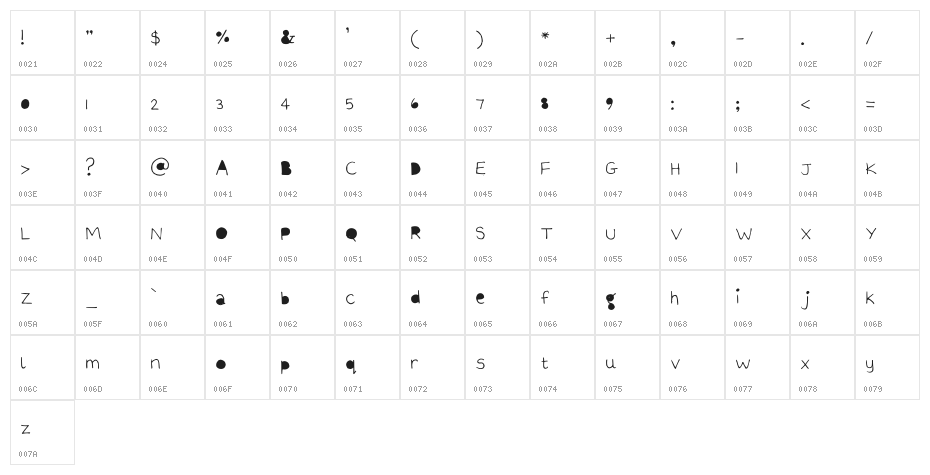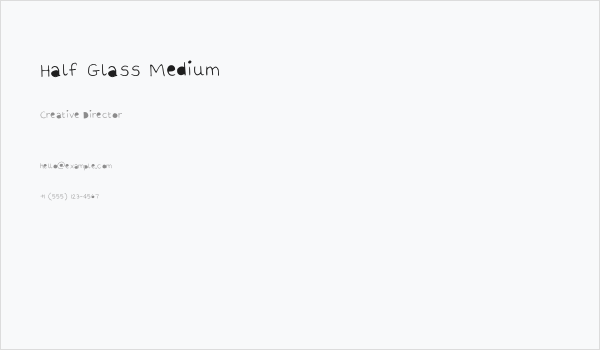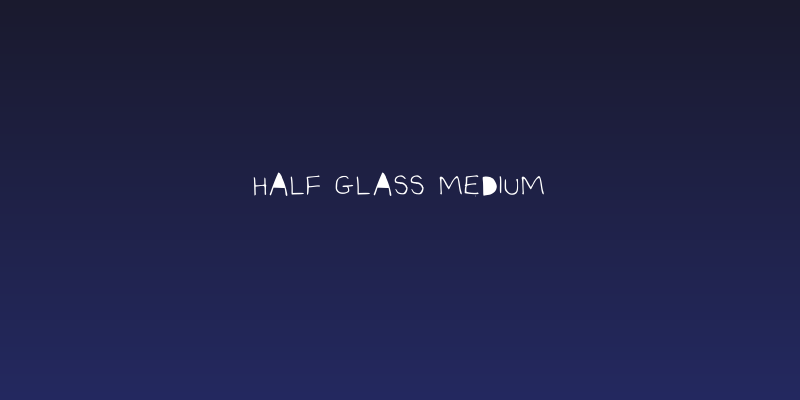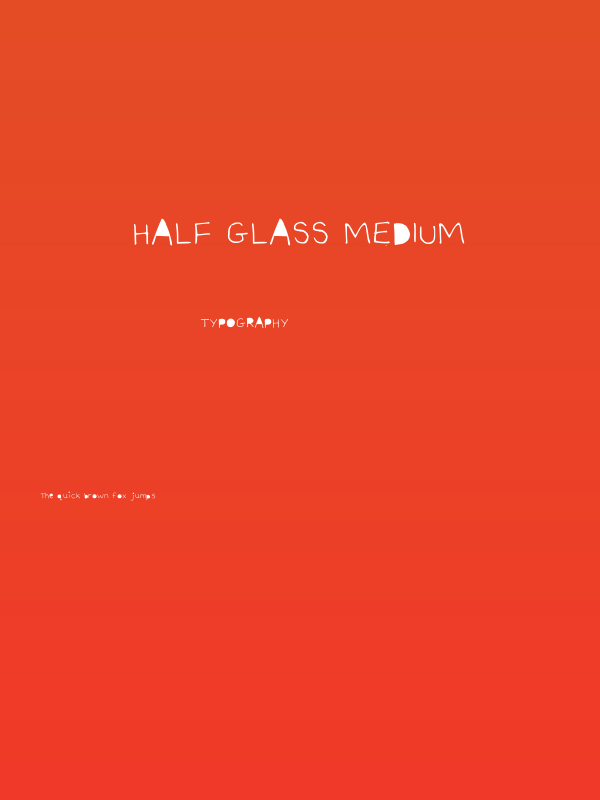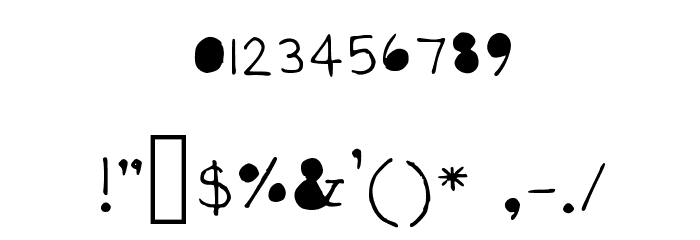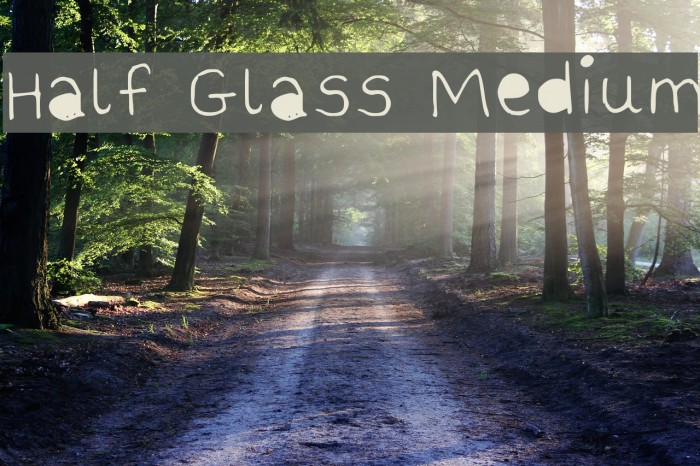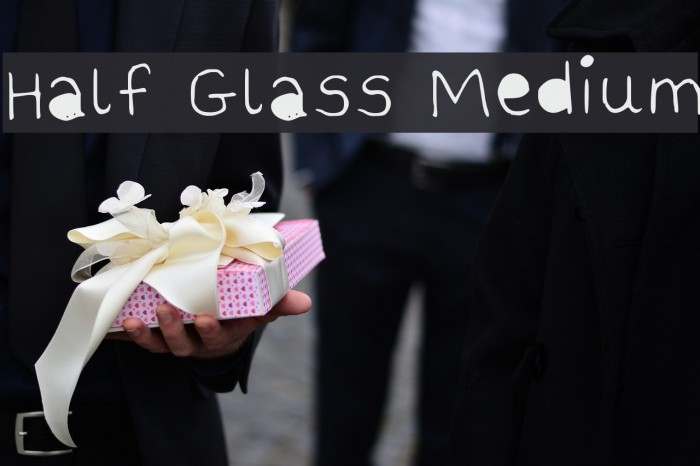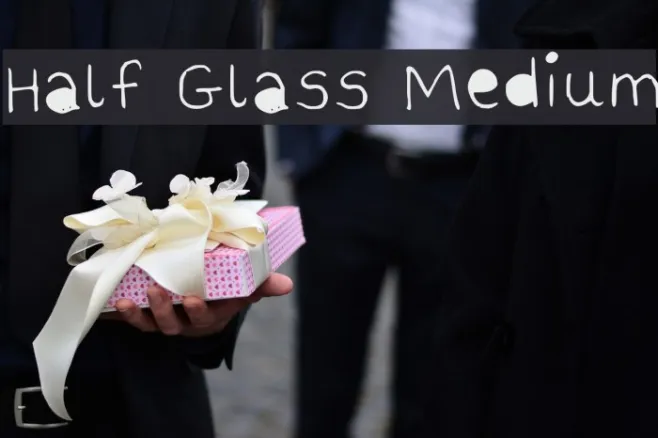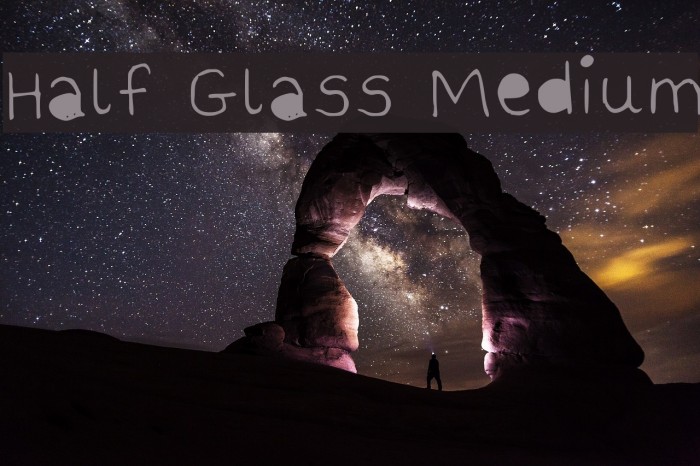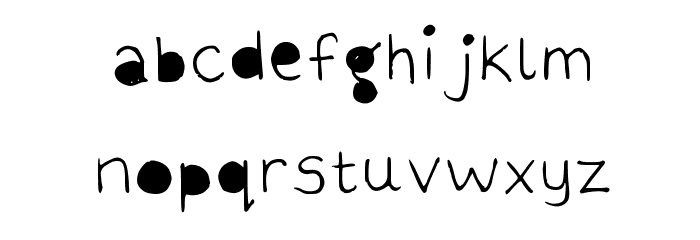
Half Glass Medium Font
Half Glass Medium Description
This font features a playful and quirky design with a hand-drawn aesthetic. The uppercase letters are bold and slightly irregular, giving a whimsical feel. The lowercase letters maintain this playful style, with some characters having unique, exaggerated forms. The numerals are consistent with the overall style, offering a cohesive look. Special characters are creatively designed, adding to the font's charm. The overall appearance is casual and artistic, making it suitable for creative projects.
| Proposed Projects | Ideal for children's books, creative posters, greeting cards, and artistic branding. |